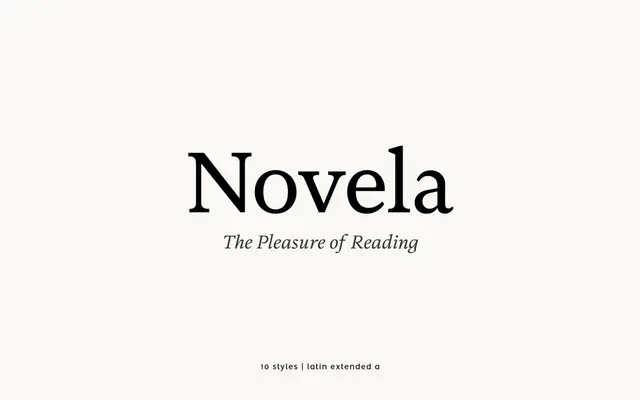
Novela
atipo foundry · Raul Garcia del Pomar, Ismael Gonzalez (atipo) · 2016
Novela specimen from atipo foundry
A contemporary serif family from atipo with display and text cuts, true small caps, ornaments and a poster sibling for the largest sizes.
A contemporary serif by atipo built for editorial and identity work. Ten styles run across five weights from Display Regular through Regular, Semibold, Bold and Black, each paired with an italic, and the family includes true small caps, oldstyle and lining figures, standard ligatures, stylistic alternates, ornaments and case-sensitive forms. The Display cut sharpens contrast for headlines while the text cut keeps the rhythm warm at body sizes, and Novela Poster extends the system to the largest display settings. Atipo offer the Regular as a free download with the rest of the family on a pay what you want basis.
Atipo position Novela as a contemporary serif family with a Display cut for headlines and a text cut for running copy, supplied with true small caps and ornaments.